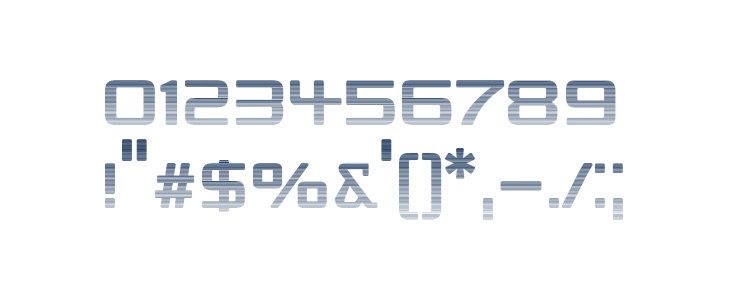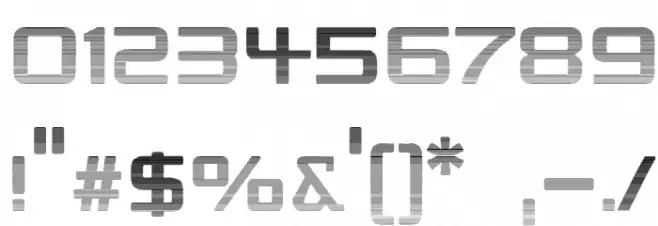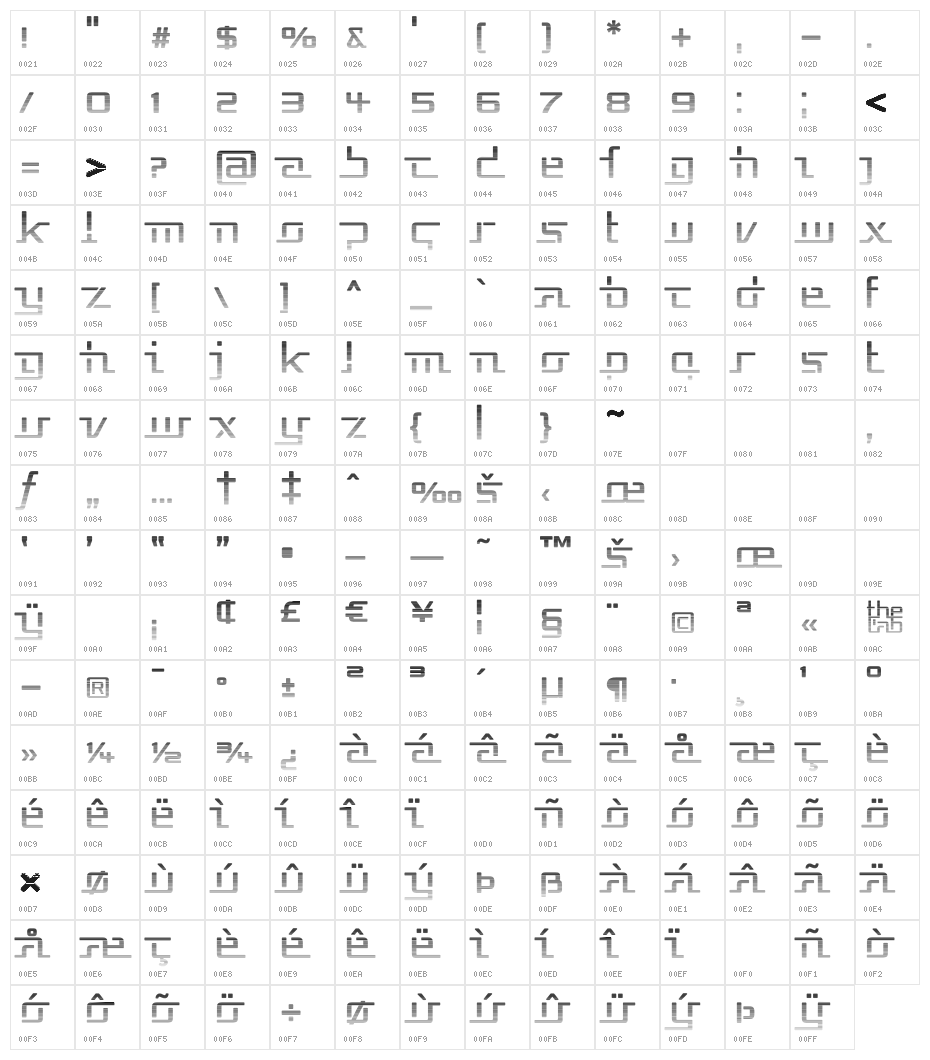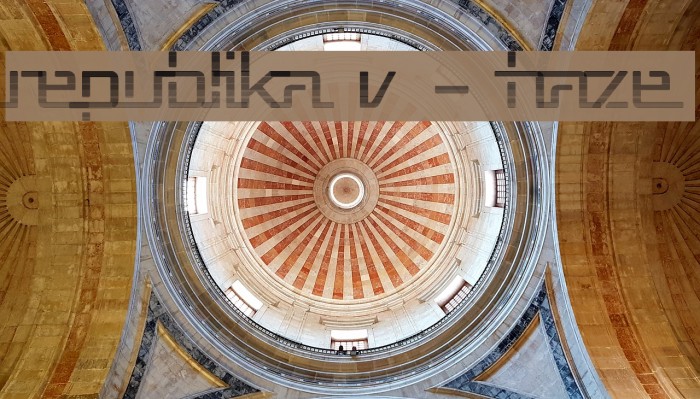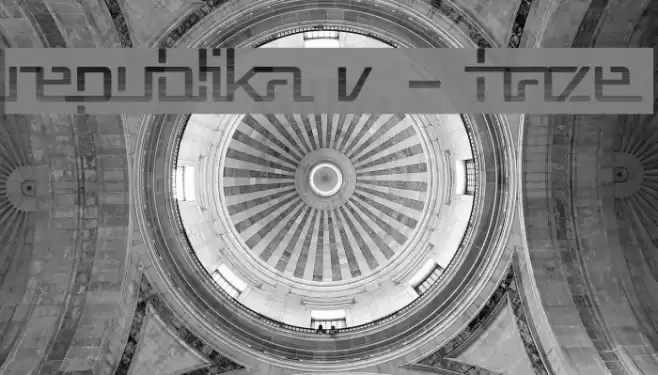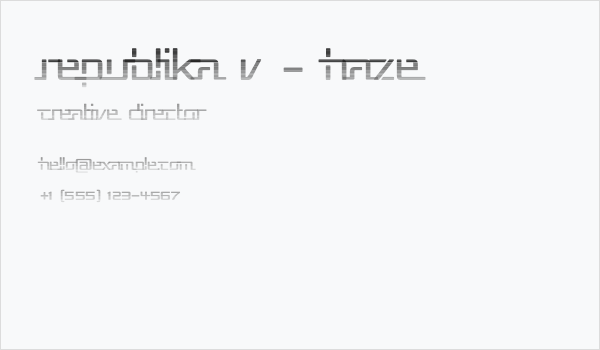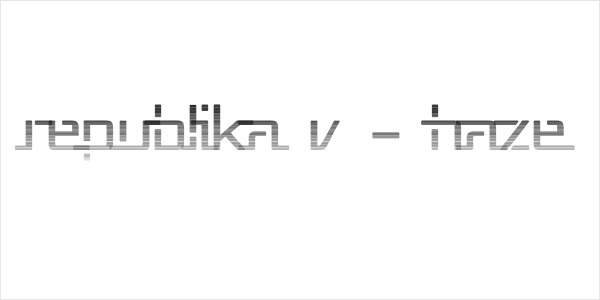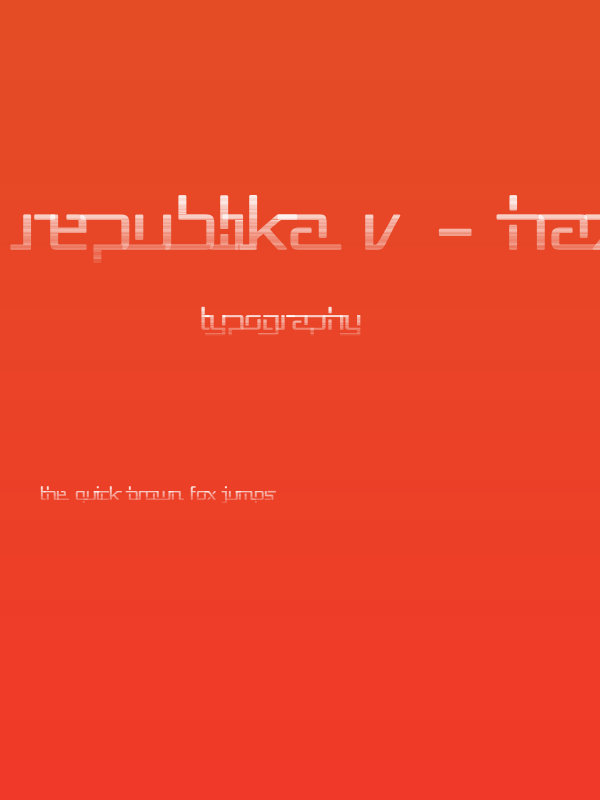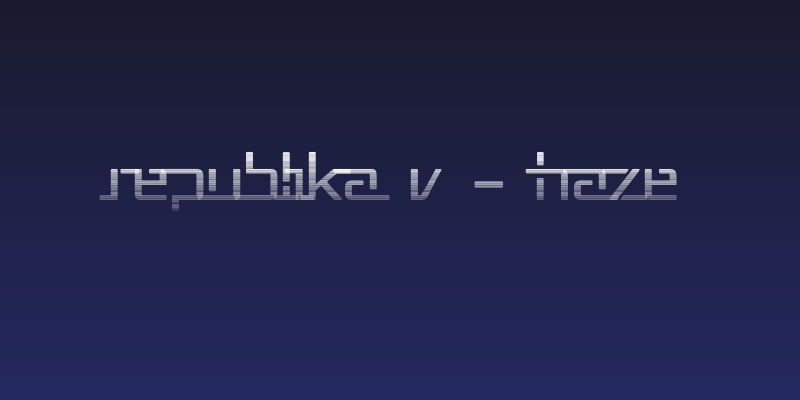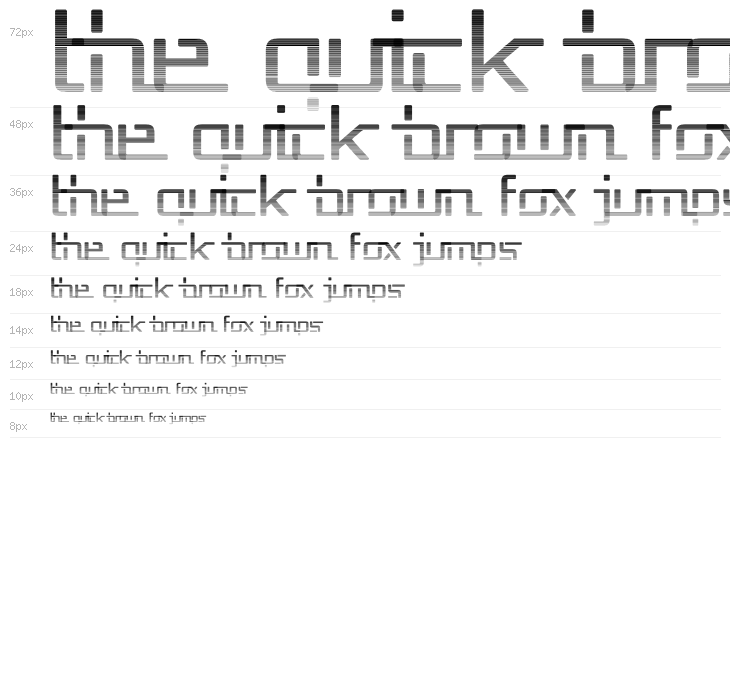
Republika V - Haze Font
Republika V - Haze Description
This font features a futuristic and digital aesthetic, characterized by its geometric and angular letterforms. The design incorporates a unique blend of linear and curved elements, creating a sense of movement and modernity. The characters are constructed with a consistent stroke width, giving it a uniform appearance. The font's style is reminiscent of digital displays and technological interfaces, making it ideal for projects that require a contemporary and innovative look. The uppercase and lowercase letters maintain a cohesive design, while the numerals and special characters complement the overall style. Its distinct appearance makes it suitable for branding, advertising, and digital media.
| Use Case | Logos, Headlines, Digital Media |
| Proposed Projects | Ideal for tech branding, digital interfaces, futuristic posters, and innovative product packaging. |